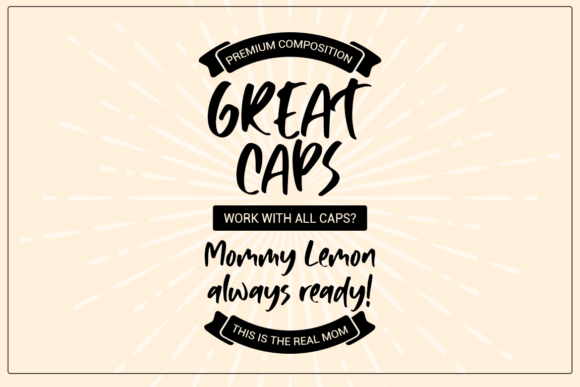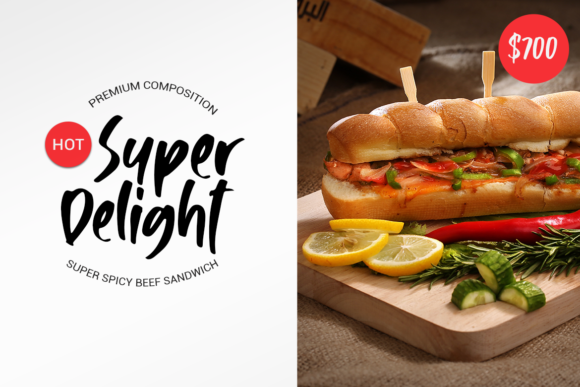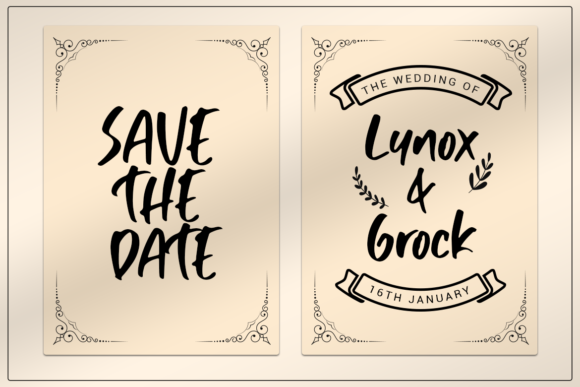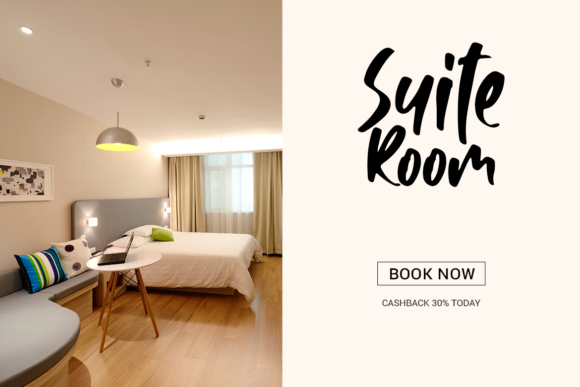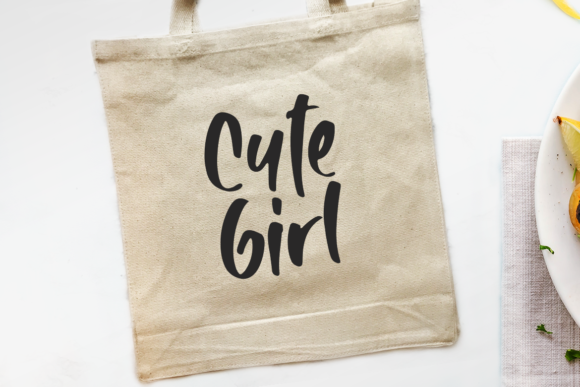
Mommy Lemon Font
About Mommy Lemon Font
Mommy Lemon is a cute and friendly script that will take any craft project to the next level. Get inspired by its unique charm!